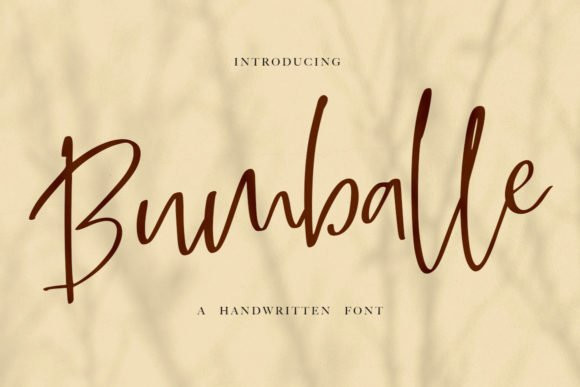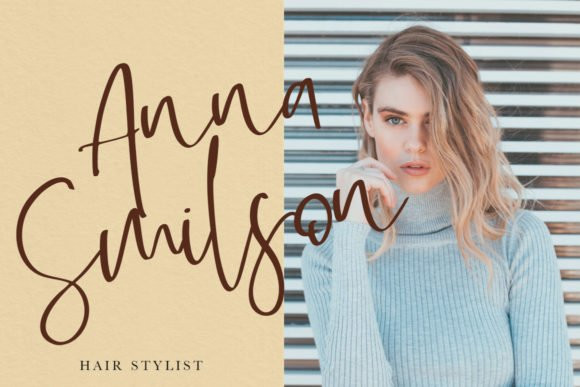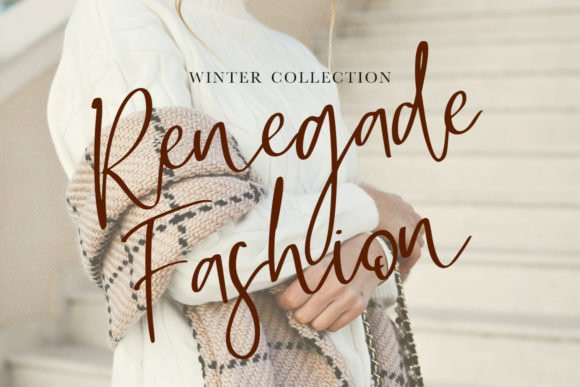
Bumballe Font
Bumballe is a relaxed and timeless handwritten font. Delicate and romantic, this font is ideal for adding a sophisticated touch to your designs.